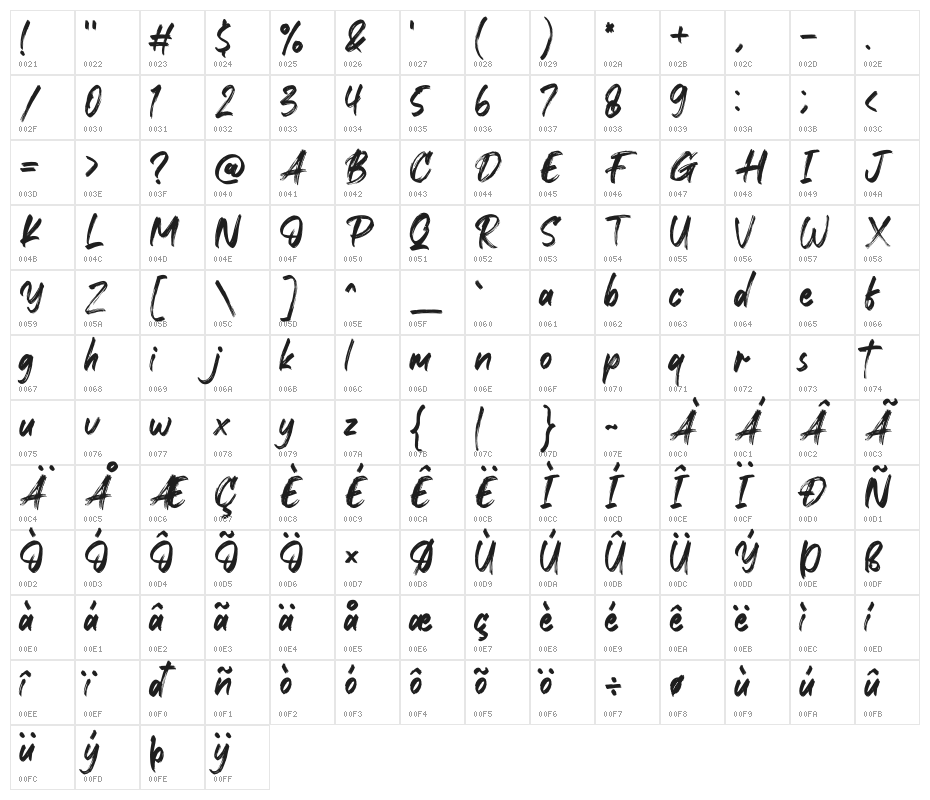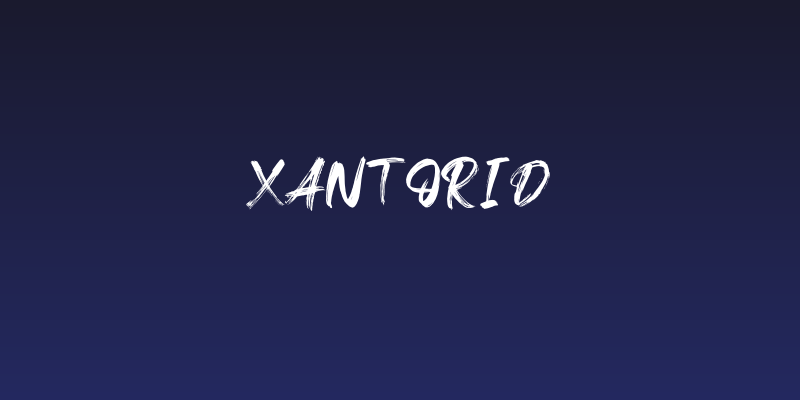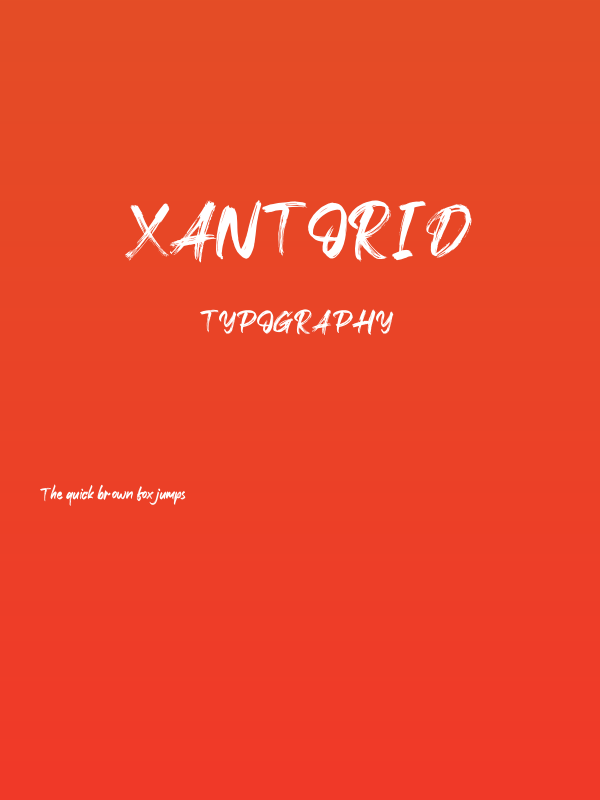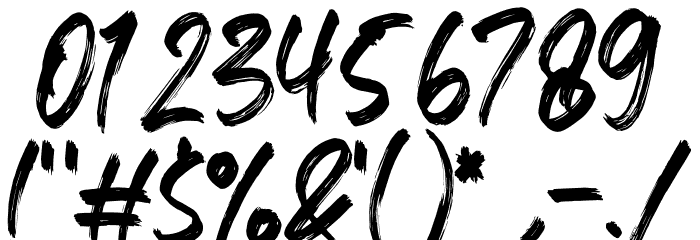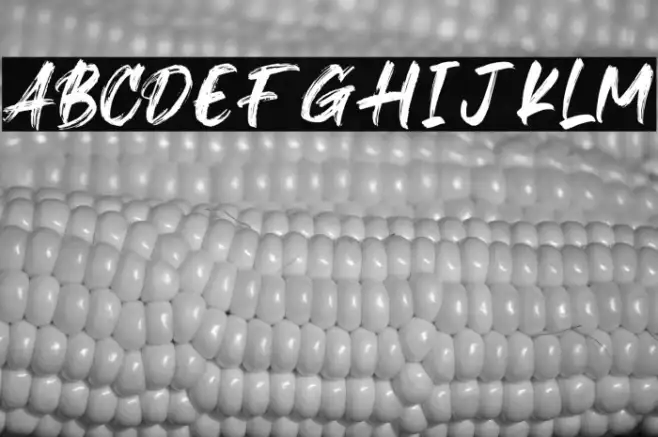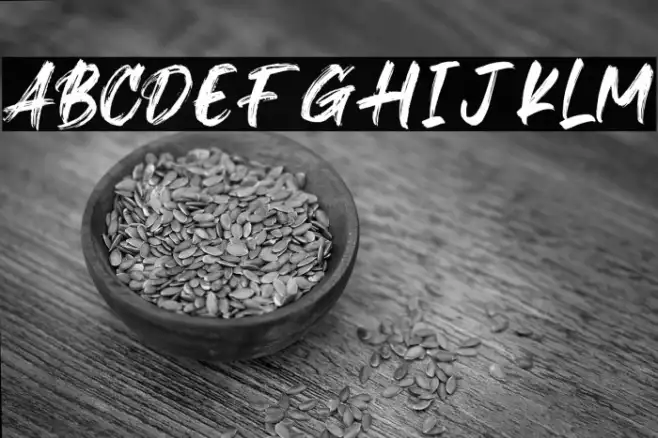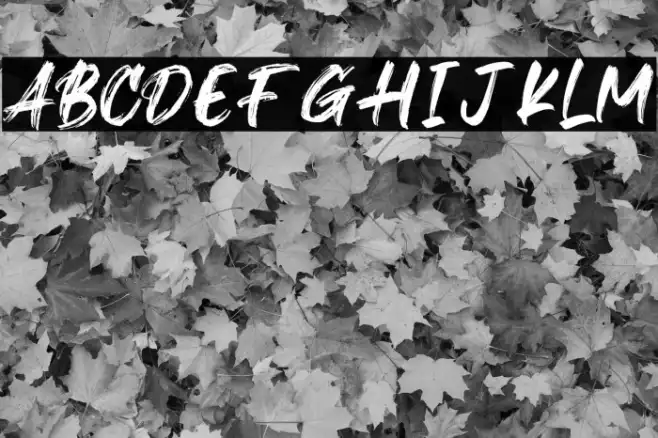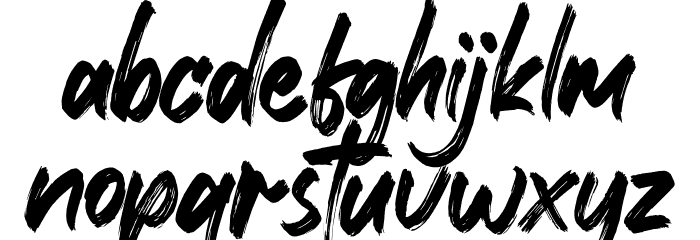
Xantorid Font
Xantorid Description
This font features a bold, expressive brush style that exudes energy and dynamism. The strokes are thick and uneven, giving it a hand-painted appearance that is both artistic and raw. The uppercase letters are slightly taller than the lowercase, with a consistent slant that adds to the sense of motion. The numbers and special characters maintain the same brush-like quality, ensuring a cohesive look across all elements. This font is ideal for projects that require a strong visual impact, such as posters, branding, or any creative work that benefits from a bold, artistic touch.
| Proposed Projects | Ideal for posters, branding, artistic projects, and any design needing a bold, energetic touch. |